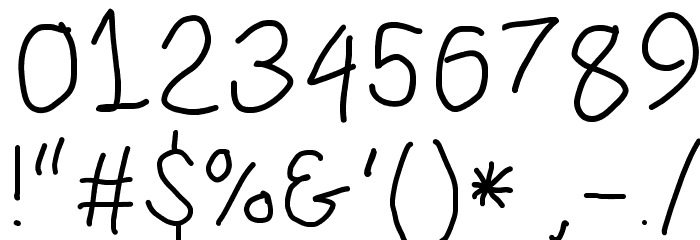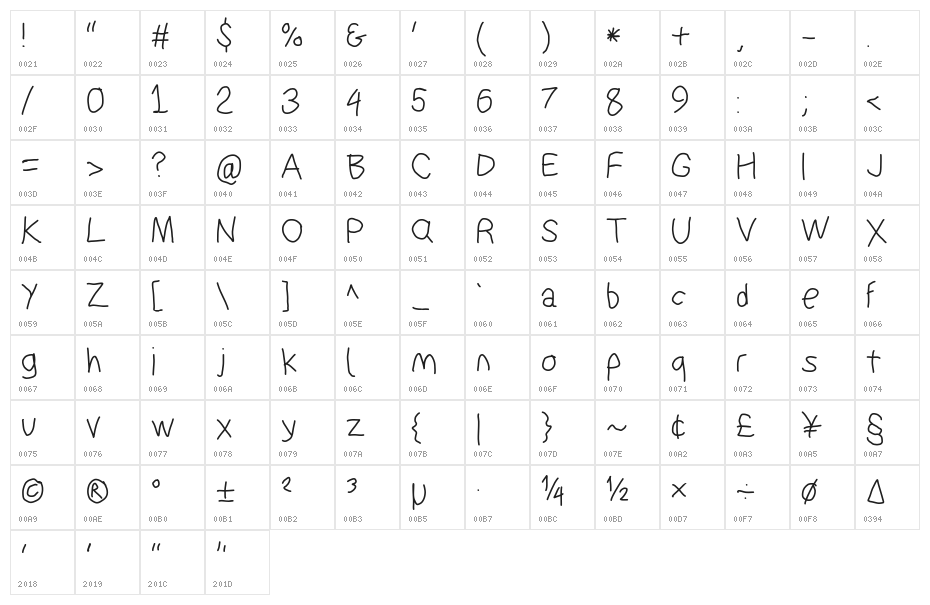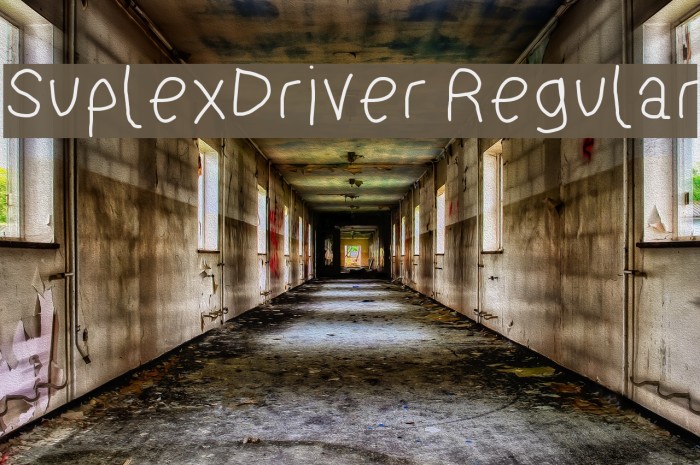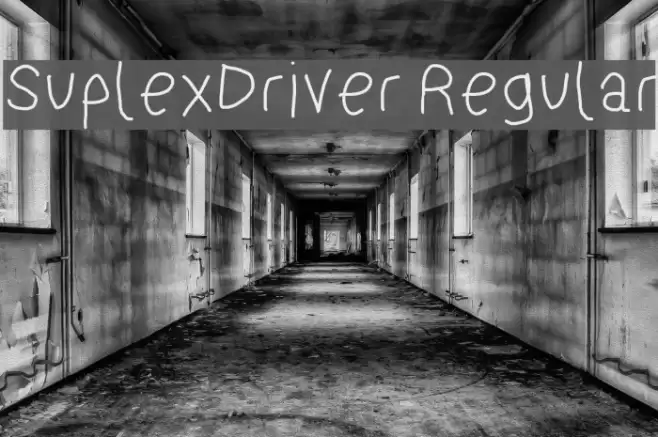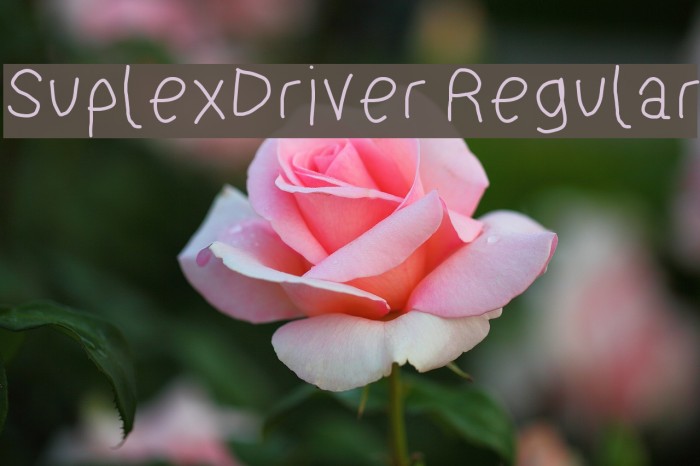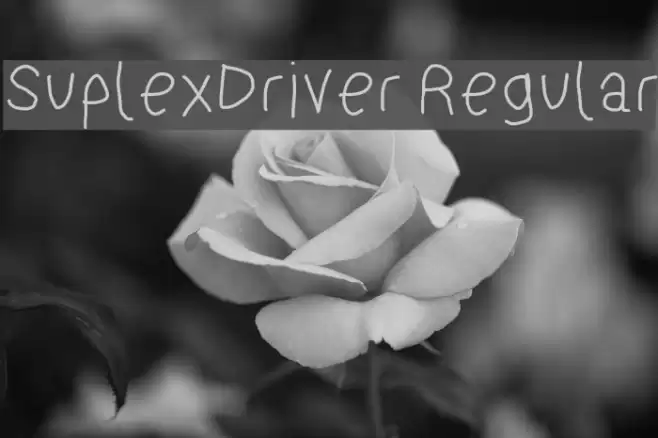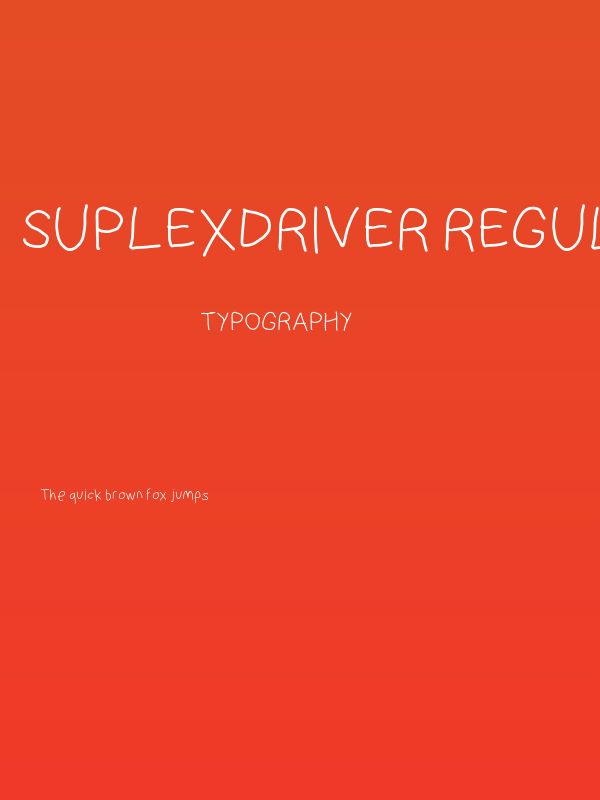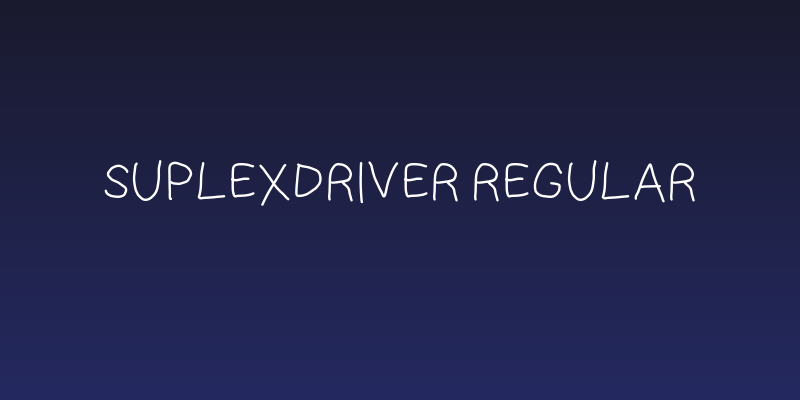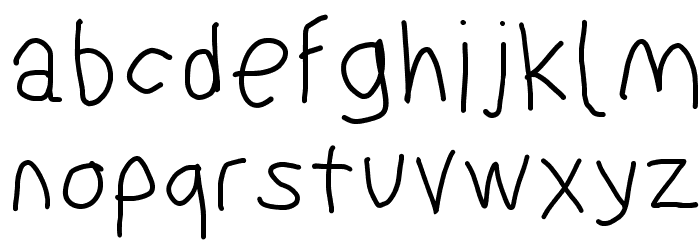
SuplexDriver Regular Font
SuplexDriver Regular Description
This font features a playful and casual handwritten style, characterized by its irregular and slightly whimsical letterforms. The strokes are uneven, giving it a natural and organic feel, as if written with a marker or pen. The uppercase and lowercase letters maintain a consistent style, with rounded edges and a slightly tilted appearance, adding to its informal charm. Numbers and special characters follow the same playful aesthetic, making it versatile for creative projects. The font's overall look is approachable and friendly, suitable for designs that aim to convey a personal touch.